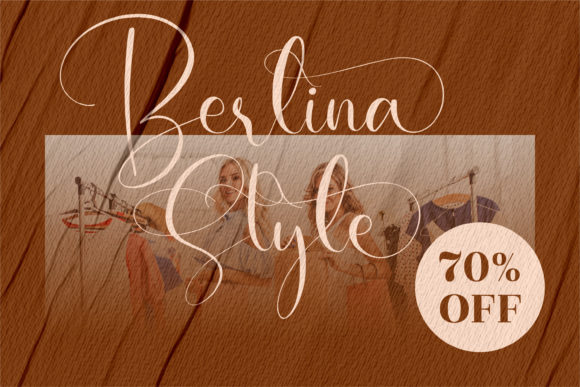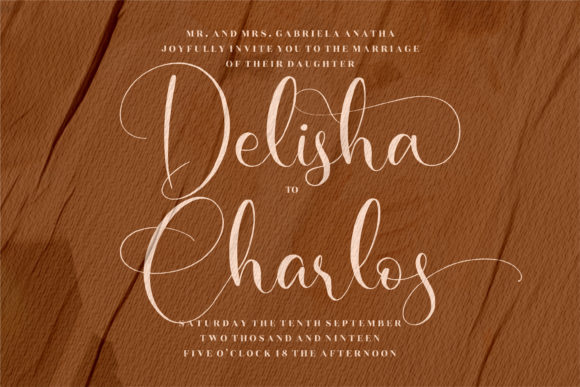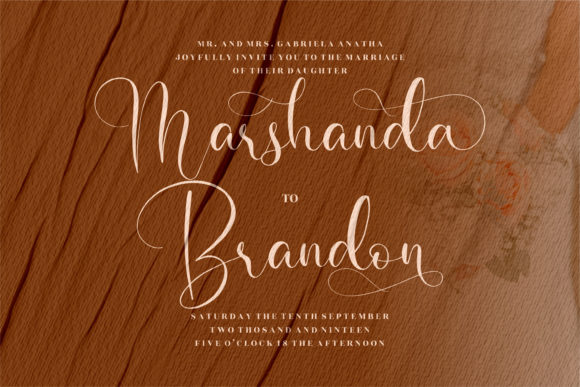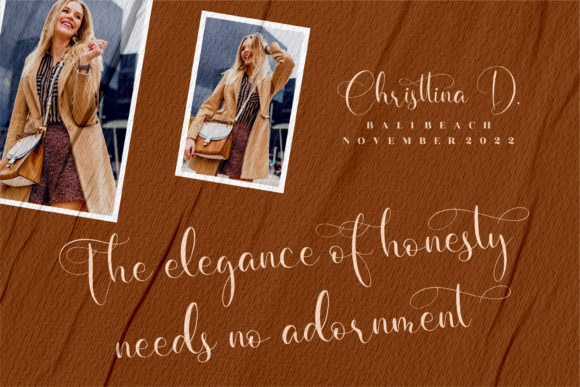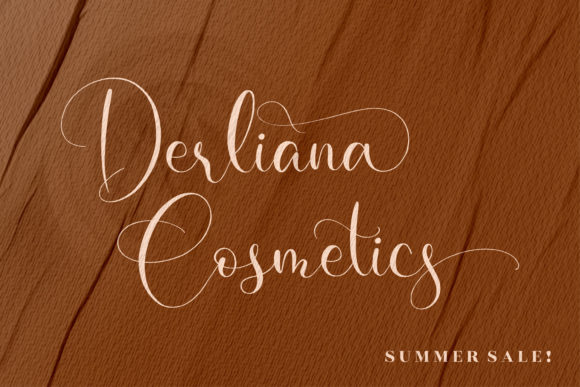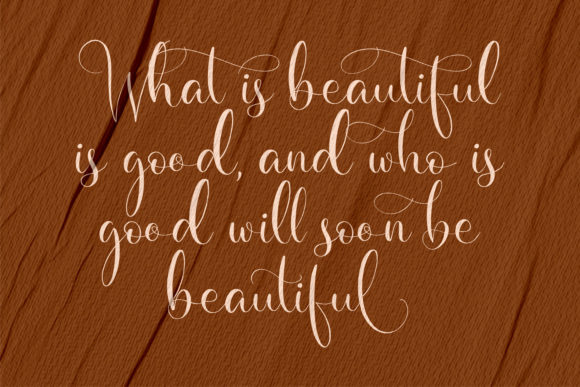
Introducing Beslatty Font: A Delicate and Elegant Handwritten Script
Are you a designer or crafter looking for a beautiful and versatile font to elevate your creative projects? Look no further than Beslatty Font, a stunning handwritten script that is sure to impress. In this article, we’ll take a closer look at the features and benefits of Beslatty Font, and explore how it can be used to add a touch of elegance and sophistication to your designs.
A Delicate and Elegant Handwritten Font
Beslatty Font is a delicate, elegant, and flowing handwritten font that is perfect for a wide range of design applications. Its beautiful and well-balanced characters make it an excellent choice for projects that require a touch of sophistication and refinement. Whether you’re designing a logo, creating a social media graphic, or crafting a handmade product, Beslatty Font is sure to add a level of elegance and poise to your design.
One of the standout features of Beslatty Font is its PUA (Private Use Area) encoding. This means that you can access all of the glyphs and swashes with ease, giving you complete creative control over your design. With PUA encoding, you can easily insert special characters, ligatures, and other decorative elements to add texture and interest to your design.
Perfect for a Wide Range of Designs
Beslatty Font is an incredibly versatile font that can be used in a wide range of design applications. Its elegant and refined appearance makes it perfect for:
- Handmade products and crafts
- Stationery and invitations
Why Choose Beslatty Font?
So why should you choose Beslatty Font for your design projects? Here are just a few reasons:
- Elegant and refined appearance: Beslatty Font has a beautiful, flowing script that adds a touch of sophistication to any design.
- PUA encoded for easy access: With PUA encoding, you can easily access all of the glyphs and swashes to add texture and interest to your design.
- Versatile and adaptable: Beslatty Font can be used in a wide range of design applications, from logos and branding to handmade products and crafts.
- High-quality design: Beslatty Font is designed to the highest standards, with beautiful and well-balanced characters that are sure to impress.
Tips for Using Beslatty Font
Here are a few tips for using Beslatty Font in your design projects:
- Experiment with different sizes and colors: Beslatty Font looks great in a variety of sizes and colors, so don’t be afraid to experiment and find the perfect combination for your design.
- Use it with other fonts: Beslatty Font pairs well with a range of other fonts, so try combining it with a bold sans-serif or a decorative script to add contrast and interest to your design.
- Add texture and interest with glyphs and swashes: With PUA encoding, you can easily add glyphs and swashes to your design to add texture and interest.
In conclusion, Beslatty Font is a beautiful and versatile handwritten script that is perfect for designers and crafters looking to add a touch of elegance and sophistication to their creative projects. With its PUA encoding, elegant appearance, and high-quality design, Beslatty Font is an excellent choice for a wide range of design applications. Whether you’re designing a logo, creating a social media graphic, or crafting a handmade product, Beslatty Font is sure to impress.